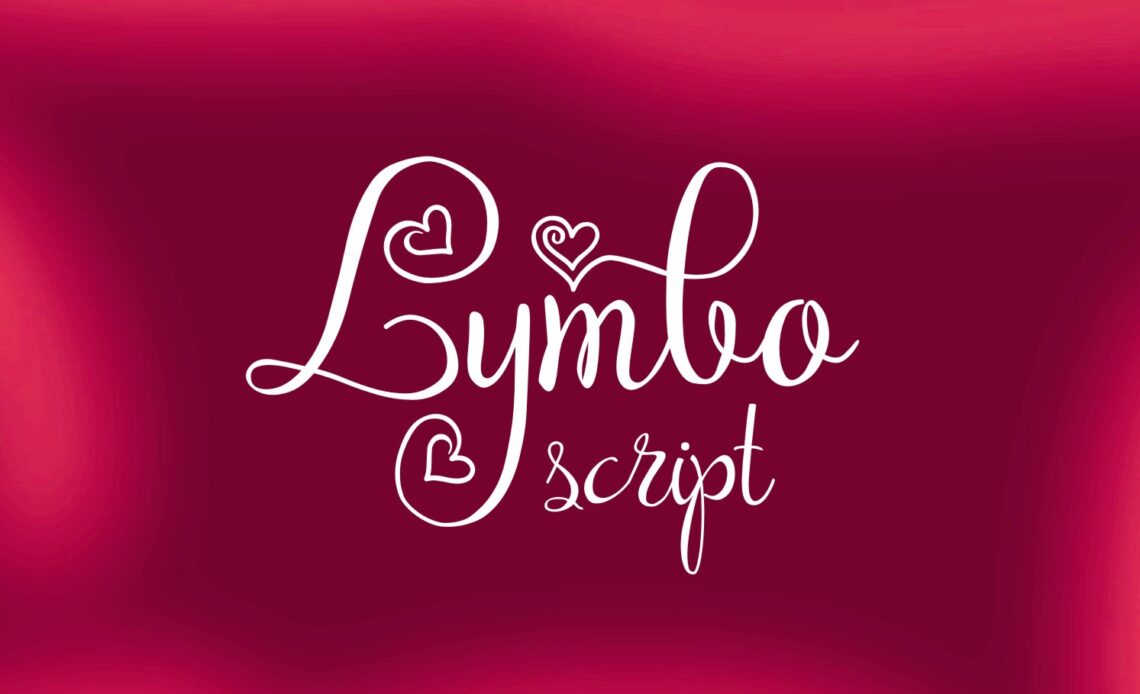
Journey into the captivating world of Lymbo Font, a script font family that weaves a spell of elegance and charm upon your designs. Embrace the allure of heart-shaped flourishes that dance across your creations, adding a touch of enchanting romance and irresistible appeal.
With Lymbo Font, your designs transcend the ordinary, captivating hearts with their heartfelt beauty. Whether you seek to craft enchanting invitations, heartwarming greeting cards, or captivating social media posts, Lymbo Font becomes your muse, transforming words into works of art. Its inherent playfulness lends a friendly touch to projects, making them approachable and utterly delightful.
Digital Typeface Studio, the visionary minds behind Lymbo Font, have poured their passion and expertise into creating a font that speaks to the heart. Each letter, meticulously crafted with love, invites you to explore the depths of creativity and express your emotions in a way that resonates with your audience.
Step into the whimsical world of Lymbo Font, where imagination flourishes and dreams take flight. Let your designs bloom with romantic grace, exuding warmth and heartfelt charm. Captivate, enchant, and inspire with every word you write, leaving an imprint of love and beauty that lingers long after the page is turned.
Dive into the enchanting embrace of Lymbo Font and unleash the boundless power of creativity. Allow your designs to blossom with heartfelt beauty and irresistibly charming appeal.